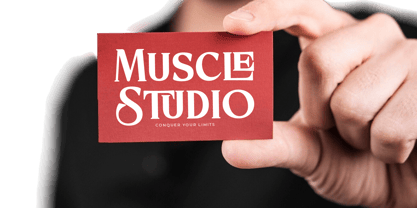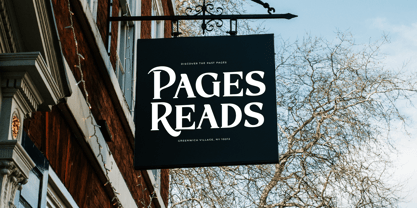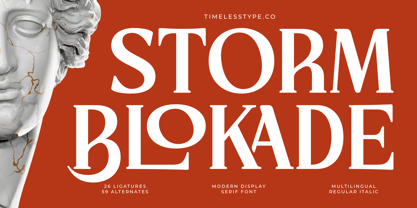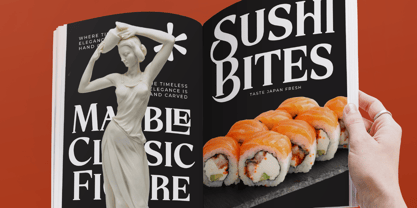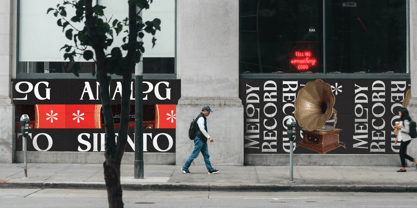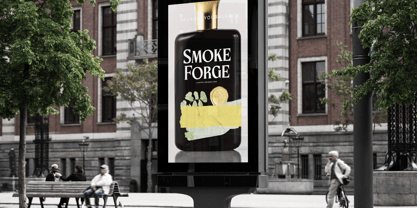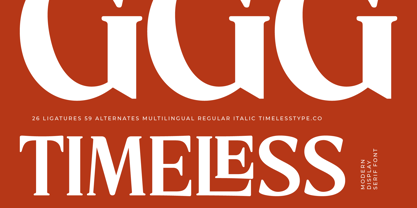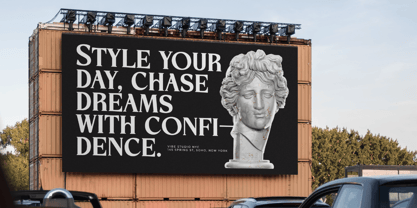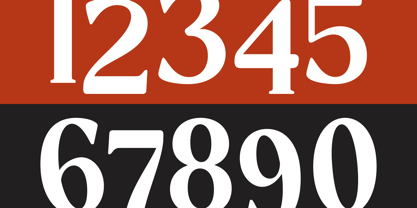
Storm Blokade
The Storm Blokade Font Family was designed by Heru Utama Putra and published by Timelesstype Studio. Storm Blokade contains 2 styles and family package options.
Storm Blokade - Modern Display Serif Font , from Timelesstype, Suitable for any projects such as: logos, branding projects, homeware designs, product packaging, mugs, quotes, posters, shopping bags, t-shirts, book covers, name card, invitation cards, greeting cards, label, photography, watermark, special events, and all your other luxury and beautiful projects that need a Luxury Serif taste.